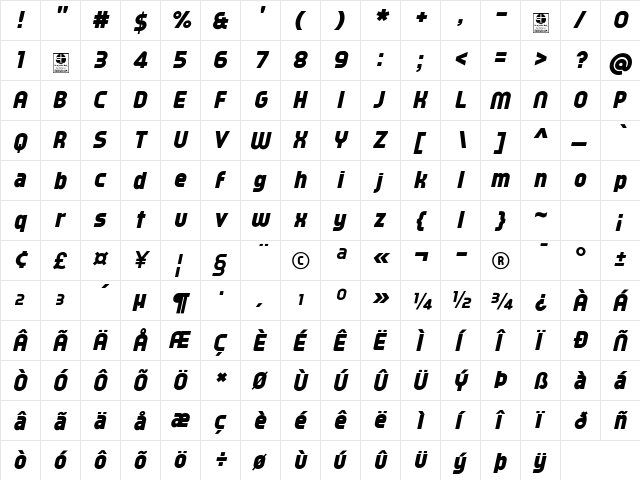
Typo Oval Black Demo Italic
Design Context for Typo Oval Black Demo Typeface
Typo Oval Black Demo is a composed and adaptable typeface that performs quietly and consistently across a wide range of design contexts. The slanted form adds forward momentum and visual energy.
Pro Tip: Use Typo Oval Black Demo for emphasis, pull quotes, and subheadings where its slanted energy can add rhythm to the layout.